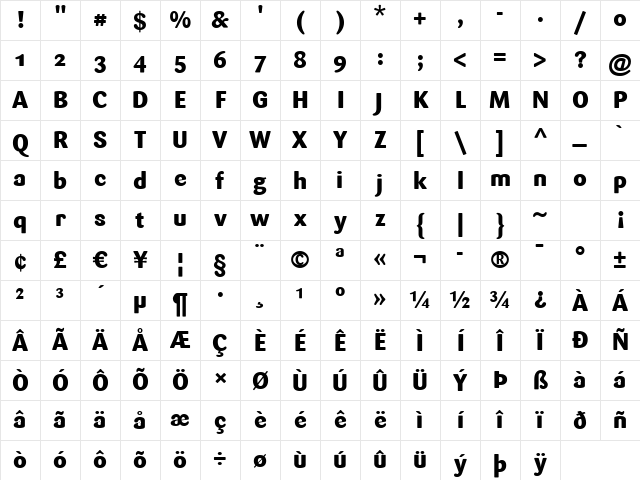
Sari ExtraBold Free Font
Sari ExtraBold
Foundry: Hans Reichel, . Published by FontShop International. FontFont Release
Design Context for Sari
Sari is a composed and adaptable typeface that performs quietly and consistently across a wide range of design contexts. Its bold stroke weight gives it real presence on the page.
Who designed the Sari ExtraBold font?